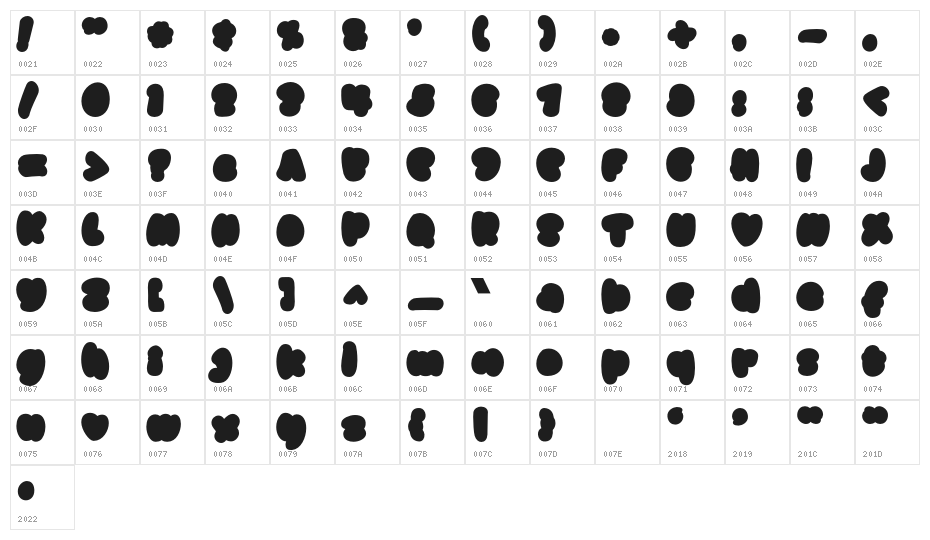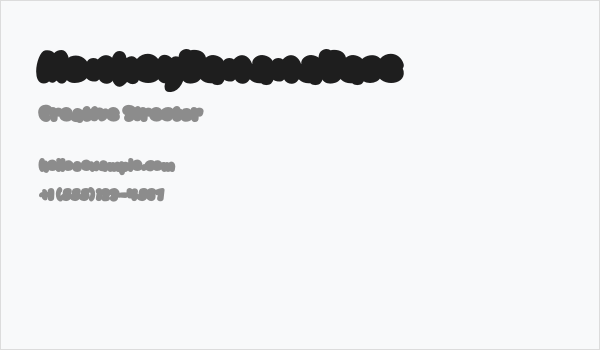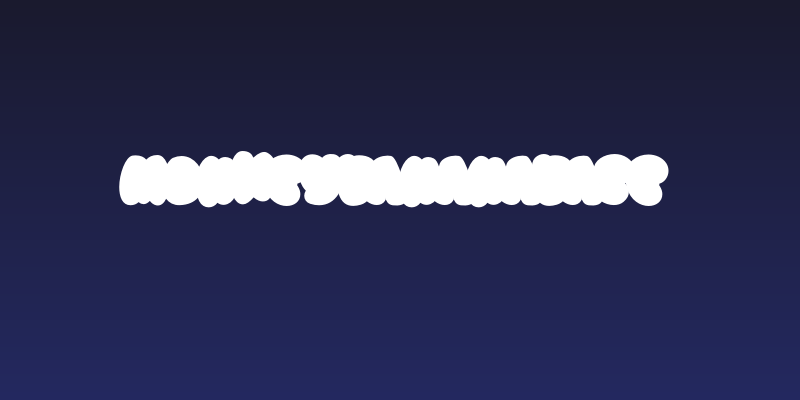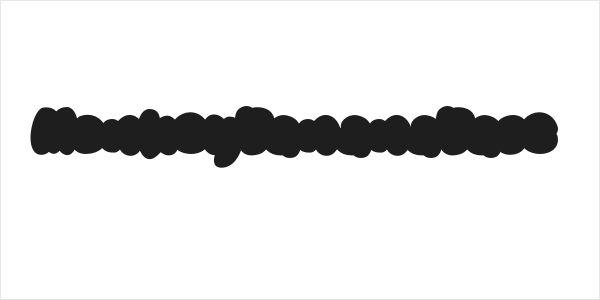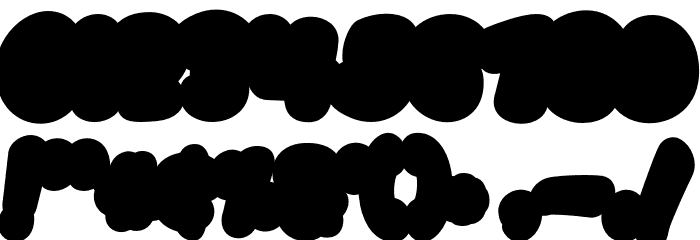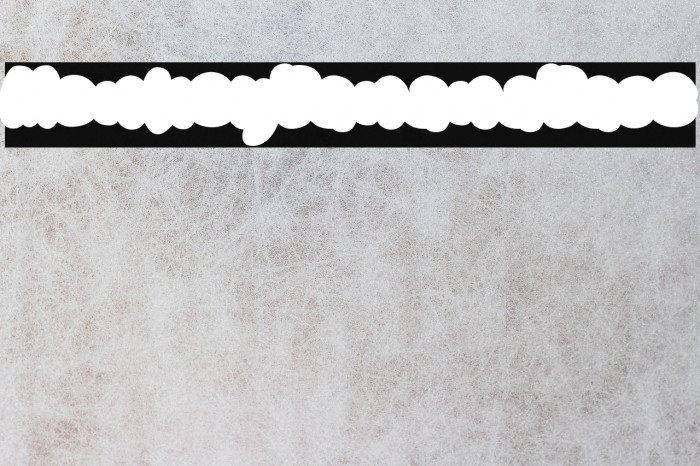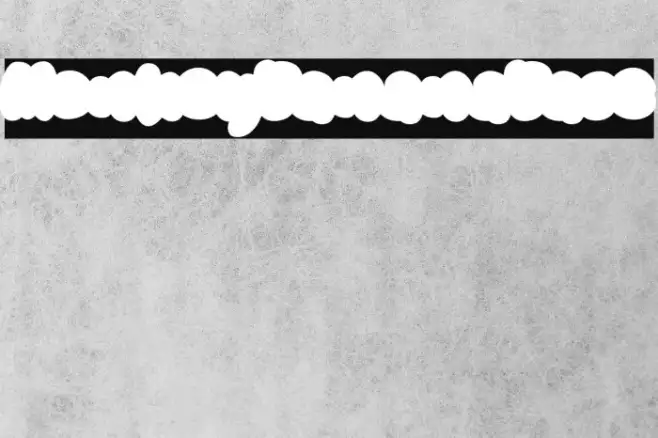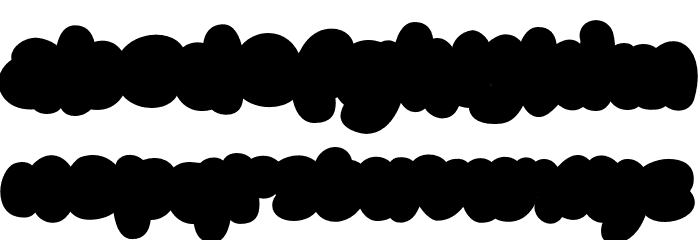
MonkeyBananaBase Font
MonkeyBananaBase Description
This font features a bold and playful design with rounded, bubbly characters. Each letter is heavily weighted, creating a sense of fun and whimsy. The characters are closely packed, enhancing the font's bold appearance. The style is reminiscent of cartoonish or comic lettering, making it ideal for projects that require a lighthearted and informal touch. The font's thick strokes and lack of sharp edges contribute to its friendly and approachable aesthetic.
| Proposed Projects | Ideal for children's books, playful branding, comic strips, and party invitations. |